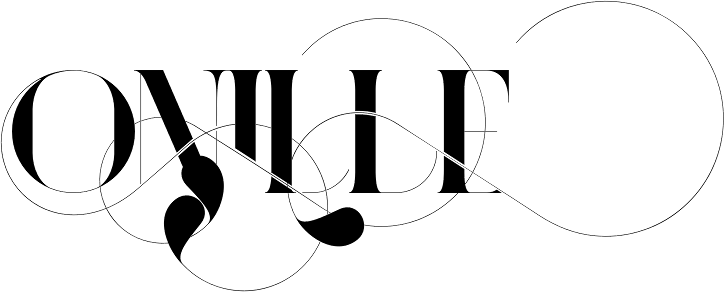
Port vintage is created by joao oliveira and published by onrepeat. The best website for free high quality port fonts with 21 free port fonts for immediate download.
Instant downloads of 1049 free vintage fonts. Conceived as an extension of the well known port typeface port vintage. Port vintage font free.
Port vintage is a new typeface expanded upon the original port typeface released in 2013 and being a. Click to share on pinterest opens in new window click to share on facebook opens in new window click to share on twitter opens in new window.